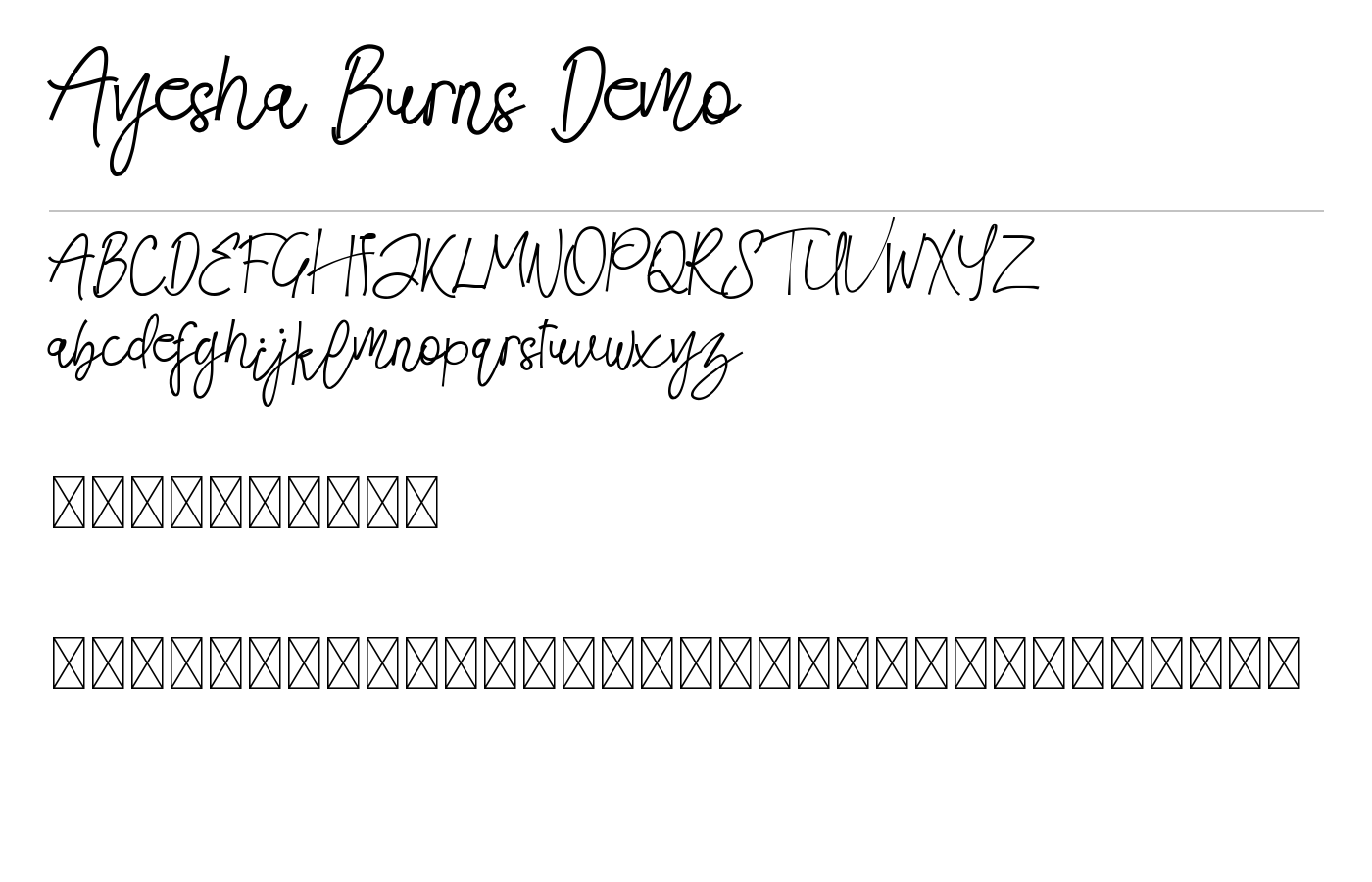
Ayesha Burns Demo is a delicate, handwritten script font with a slender, flowing style that feels casual yet refined. Its tall, narrow letterforms and smooth, connected strokes create an airy, elegant appearance perfect for personal branding, invitations, and creative projects that seek a touch of individuality and warmth. This font works best in headlines and logos where a friendly, approachable personality is desired.
Ayesha Burns Demo Font
About Ayesha Burns Demo Font
| Font family | Ayesha Burns Demo Font |
| Designer | Yasri Ainun & Suci Anita |